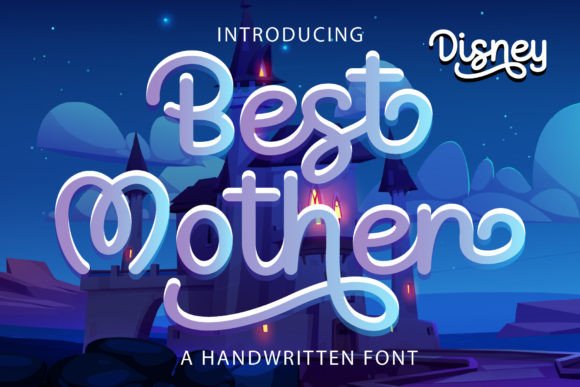
The Quest for the Perfect Font: Discovering Best Mother
I still remember the time I was working on a wedding invitation project, and my client asked for a font that was elegant, stylish, and had a personal touch. I scoured the internet, tried countless fonts, but nothing seemed to fit the bill. That was until I stumbled upon Best Mother, a decorative handwritten font that stole my heart. In this article, I’ll share my journey with Best Mother, its features, and how to make the most of it in your designs.
An Honest Review of Best Mother
- ✨ Stylish and elegant: Best Mother is perfect for designs that require a touch of sophistication.
- ✅ PUA encoded: Easily access all glyphs and alternates, making it a breeze to work with.
- 💕 Versatile: Use it for wedding invitations, thank you cards, quotes, greeting cards, logos, business cards, and more.
While Best Mother is an amazing font, there are a few things to keep in mind:
- ⚠️ Limited use cases for bold or heavy designs: Best Mother is a delicate font, so it might not be the best choice for designs that require a strong, bold look.
- 🤔 Can be overwhelming: With so many glyphs and alternates available, it can be daunting to navigate and choose the right ones.
The Story Behind Best Mother
Best Mother was designed with love and care by a talented type designer who wanted to create a font that would bring a touch of elegance and sophistication to any design. Inspired by classic calligraphy and handwritten scripts, Best Mother is a beautiful reflection of the designer’s passion for typography.
A: PUA (Private Use Area) encoding allows you to access a wide range of glyphs and alternates, making it easy to customize your text and create unique designs.
Q: Is Best Mother suitable for body text or long-form content?
A: While Best Mother is a beautiful font, it’s best suited for headlines, titles, and short-form content. For body text or long-form content, consider a more readable font.